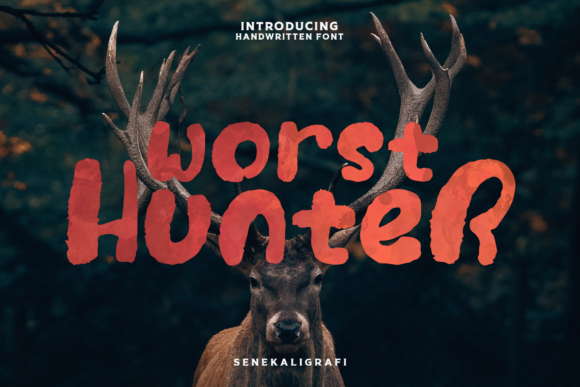
**Worst Hunter: The Epitome of Distinctive and Enthralling Typography**
Unleash the power of "Worst Hunter," an extraordinary script font that captivates with its striking strokes and signature style. Crafted by the renowned Senekaligrafi Font, this masterpiece is a testament to exceptional design, inviting you to embark on a typographical journey like no other.
"Worst Hunter" embodies the essence of uniqueness, exuding an aura of originality that will set your creative endeavors apart. Its bold, fluid movements evoke a sense of dynamism and intrigue, while its meticulously crafted details add a touch of sophistication and charm.
Whether you seek to create captivating branding for your business, design eye-catching packaging for your delectable culinary creations, or craft unforgettable movie titles and album covers, "Worst Hunter" is your indispensable companion. Its inherent versatility makes it a font of endless possibilities, empowering you to bring your visions to life with unparalleled flair.
Elevate your projects to the pinnacle of creativity with "Worst Hunter." Its captivating strokes will dance across your designs, leaving an unforgettable impression on all who behold them. Embrace the allure of distinction and embark on a typographical odyssey that will redefine your creative boundaries.
**Immerse Yourself in a World of Limitless Typographical Expressions**
With "Worst Hunter," the possibilities are boundless. Its enchanting strokes adapt seamlessly to a myriad of design concepts, allowing you to create captivating logos that exude professionalism, design packaging that tantalizes the senses, and craft movie titles and album covers that ignite the imagination.
Unleash your inner artist and explore the depths of your creativity with "Worst Hunter." Its versatility knows no bounds, empowering you to create designs that resonate with your unique style and vision. Whether you're a seasoned designer or just starting your typographical journey, "Worst Hunter" will become your trusted ally, guiding you towards typographical excellence.
**Elevate Your Design Prowess with "Worst Hunter"**
Don't settle for ordinary fonts that blend into the background. Embrace the power of "Worst Hunter" and let your designs stand out from the crowd. Its captivating strokes will add a touch of intrigue and originality to every project you undertake, leaving a lasting impression on your audience.